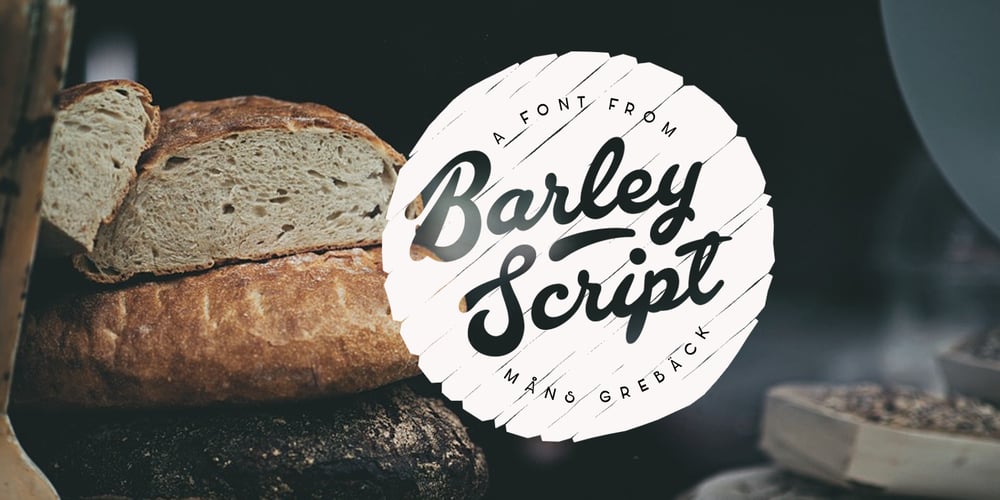
Barley Script Font Family was designed by Måns Grebäck and published by Mans Greback. Barley Script contains 1 styles and family package options. Barley Script is a round and flowing script typeface. It is handmade by Måns Grebäck and works perfectly for logotypes and slogans. The font contains a lot of alternate characters and ligatures to make the script simulate a handpainted logo. With its hundreds of glyphs it also has support for a wide range of languages. Write underscores before any word to make an underline. Example: _Barley If your software supports ligatures, you can write multiple underscores for a longer line. Example: __Bakeries